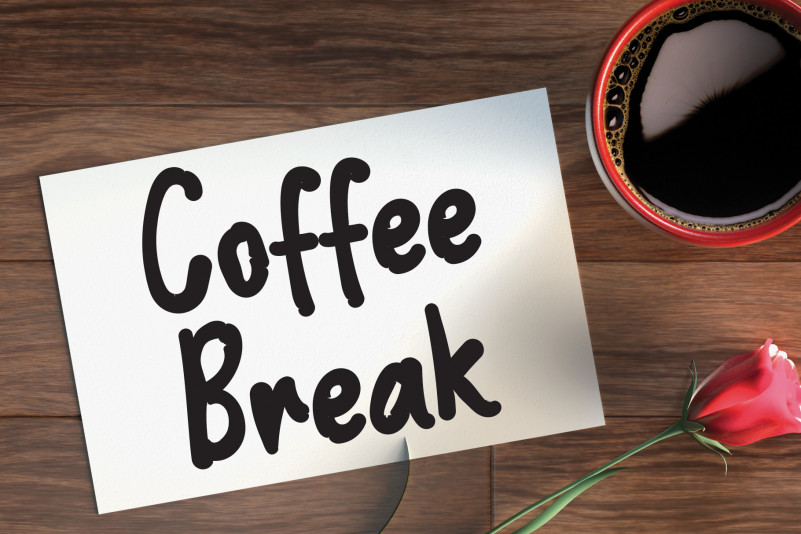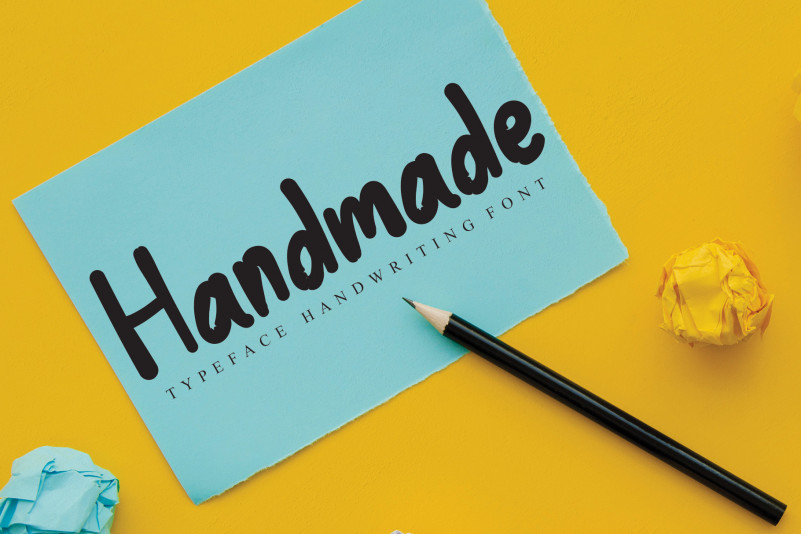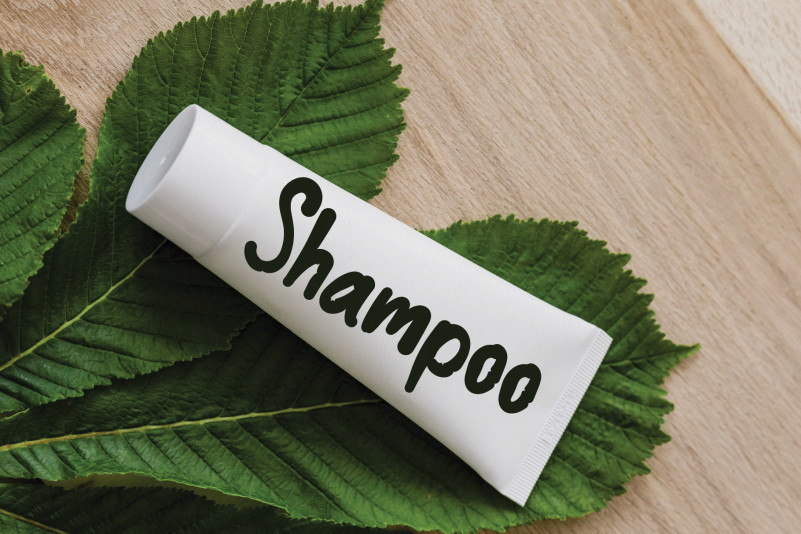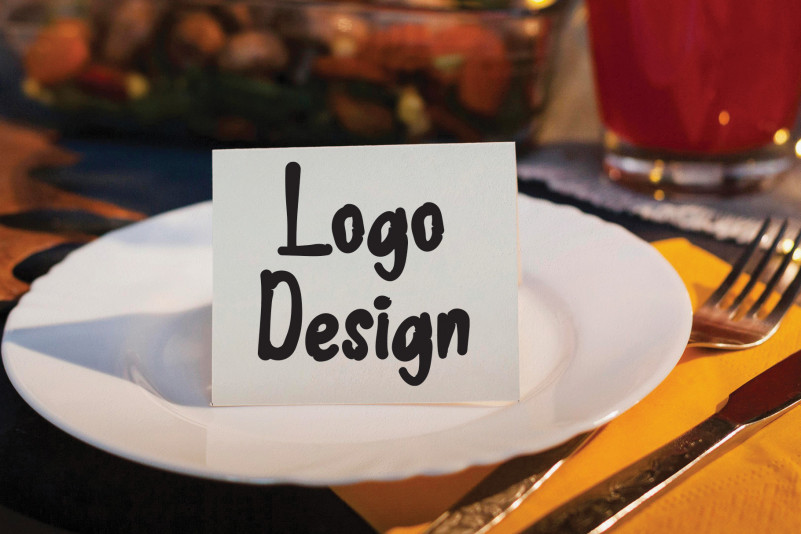
Hello New Year Display Font
Hello New Year Display Font is a chunky lettered display font. Add this font to your creative ideas and notice how it will make them stand out!